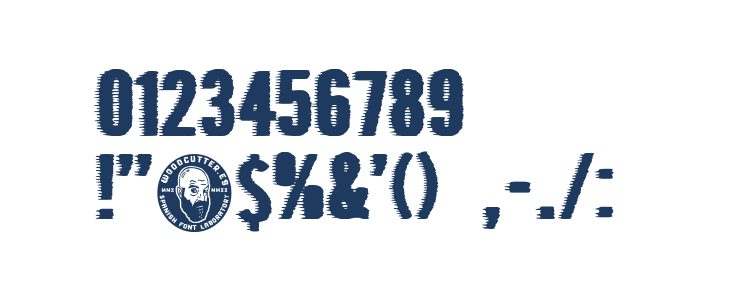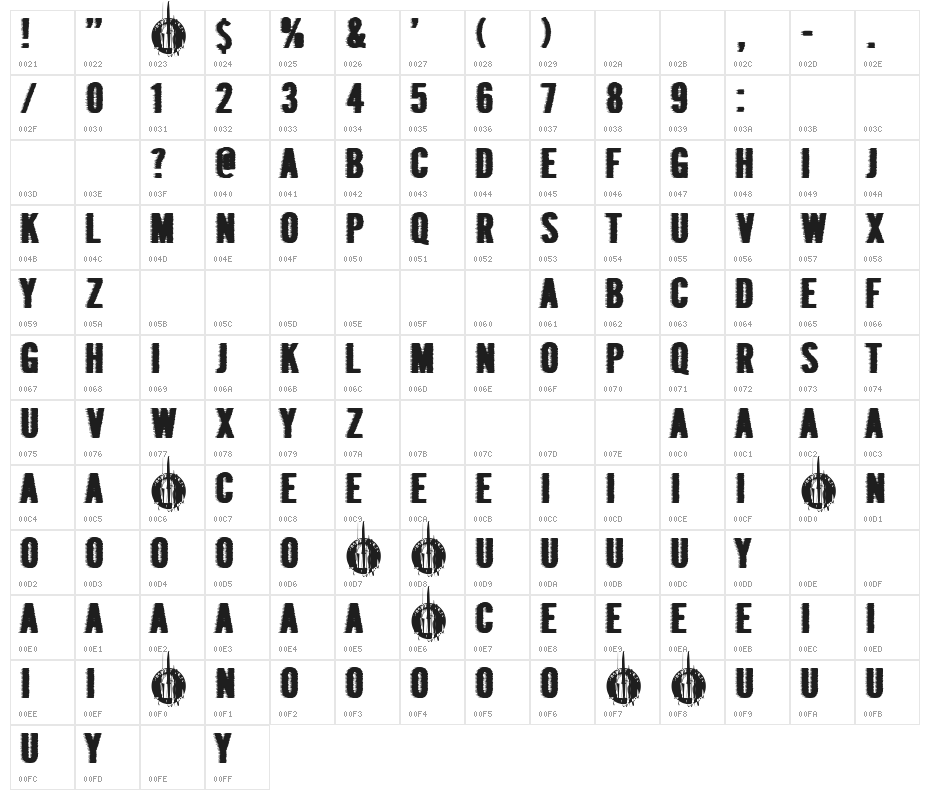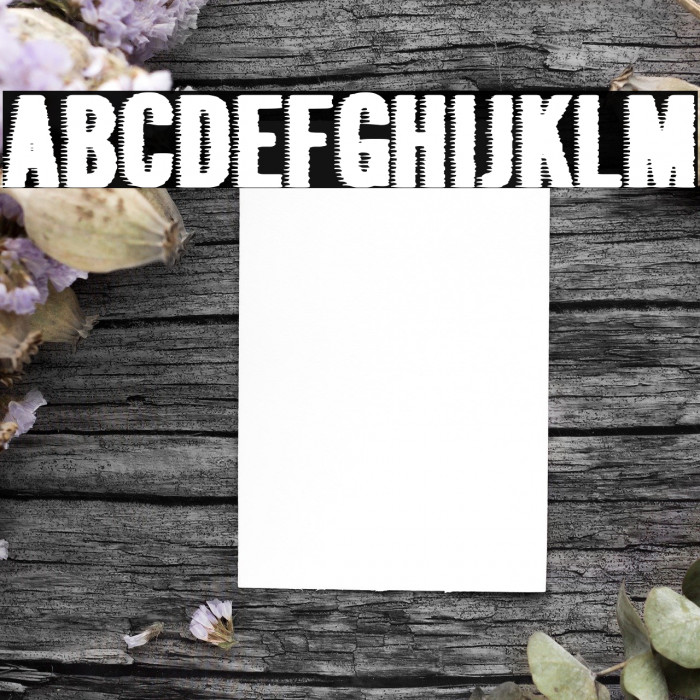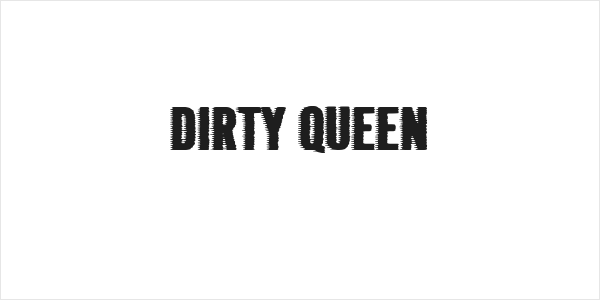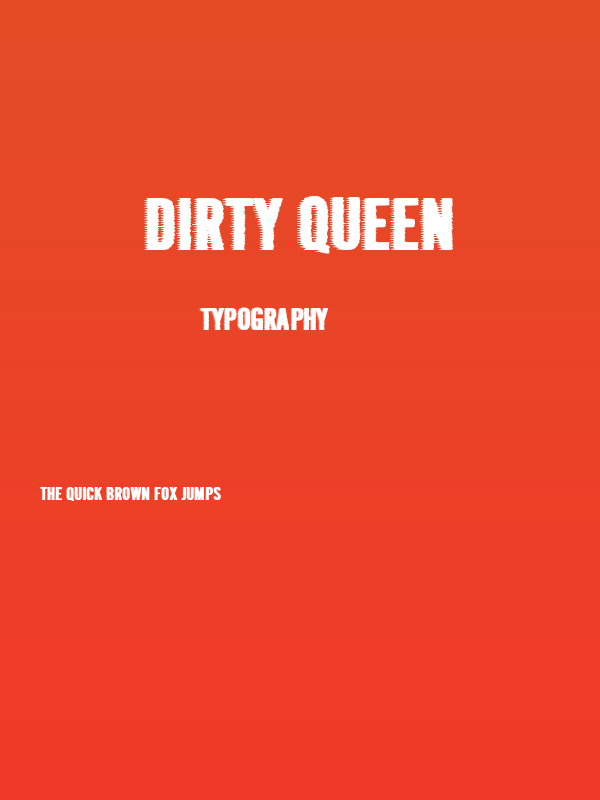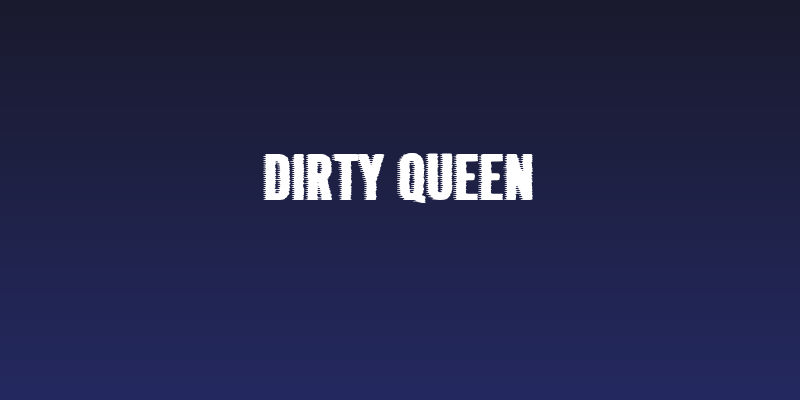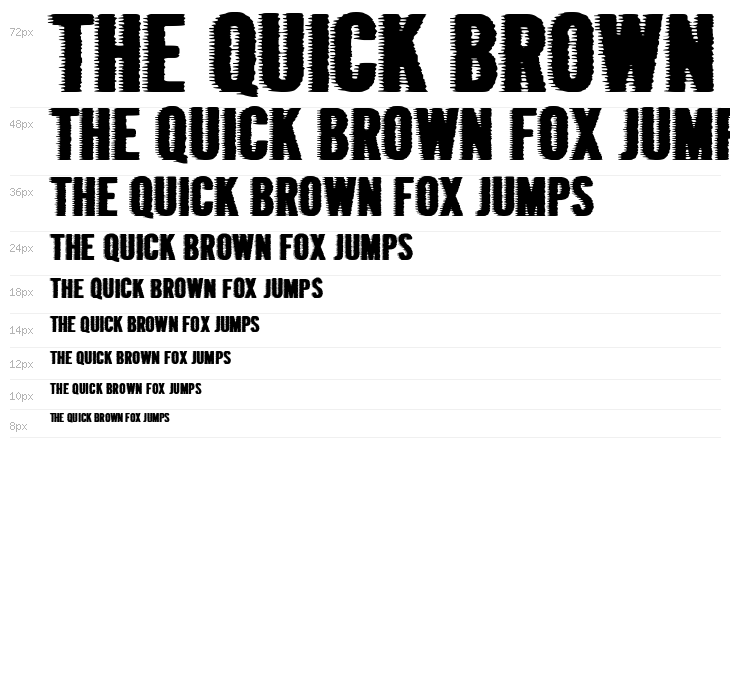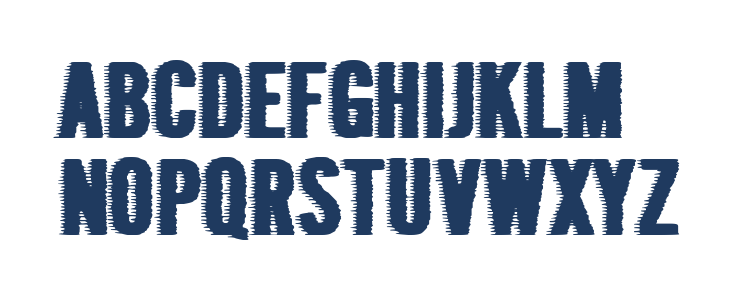
Dirty Queen Font
Dirty Queen Description
This font features a bold and rugged design with a distressed texture that gives it a gritty, urban feel. The characters are thick and blocky, with a rough, uneven edge that suggests a hand-crafted or worn appearance. The style is reminiscent of street art or graffiti, making it ideal for projects that require a bold, eye-catching statement. The uppercase and lowercase letters maintain a consistent weight, while the numbers and special characters follow the same distressed aesthetic, ensuring a cohesive look across all text elements.
| Overall Style | Urban, Gritty, Distressed |
| Proposed Projects | Ideal for posters, album covers, streetwear branding, and urban-themed designs. |